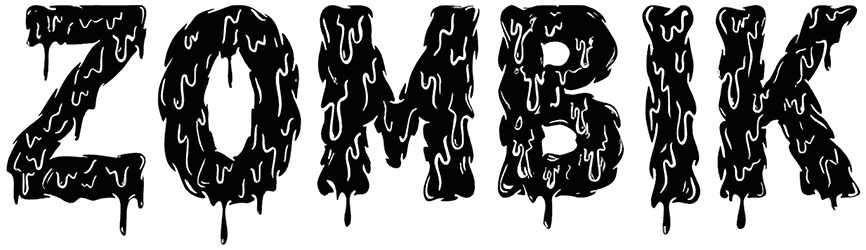
Zombik Font
When you use the Zombik Halloween font for your upcoming projects, whether you’re designing a poster, card, t-shirt, or anything else, you’ll be happy with the results.